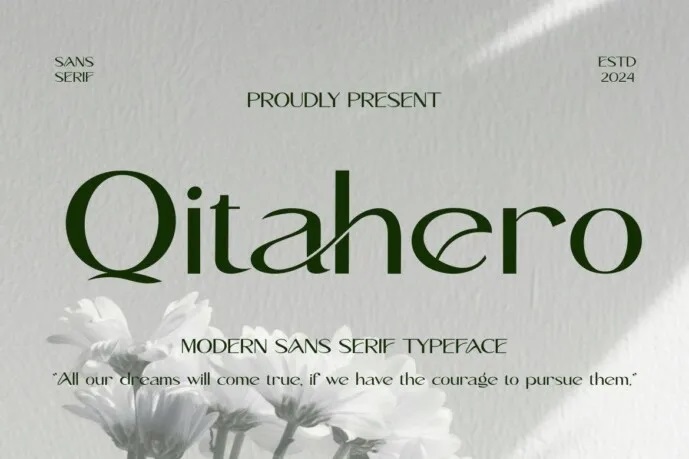
Qitahero Font
Qitahero Font is a modern sans serif and authentic creation. Completely professional in style and suitable for branding products, Qitahero Font is perfect for any of your branding projects like quotes, logos, blog headers, posters, ribbons, letters, invitations, notices, stationery proposals, etc. Its flexibility and versatility makes Qitahero Font the ideal candidate for all kinds of design projects and media/prints alike. Having performed impressively in many different situations
Qitahero Sans Serif Font